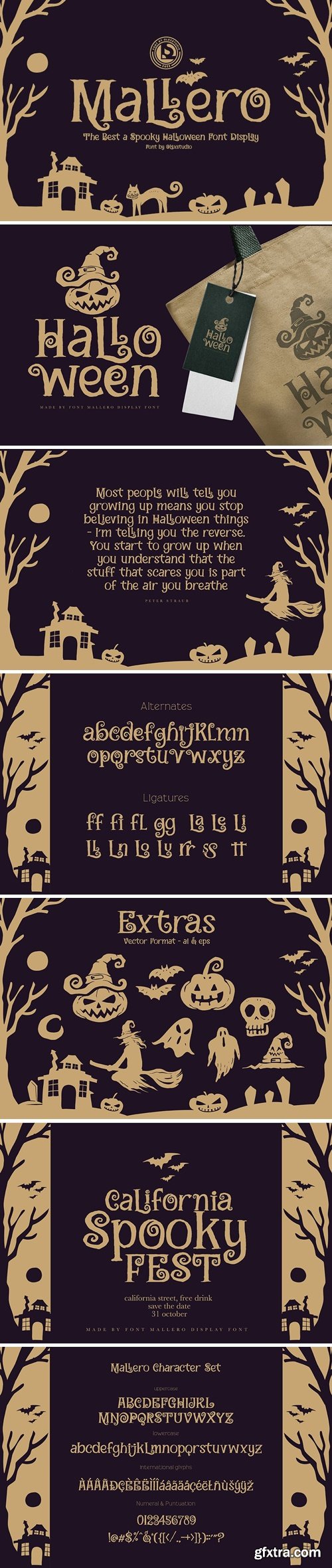
mallero - 妈拉罗 恶魔字体展示
MALLERO - Halloween Display Font will look gorgeous on all your designs, invitation, poster design, book design, branding materials, logo's, and all project design other.